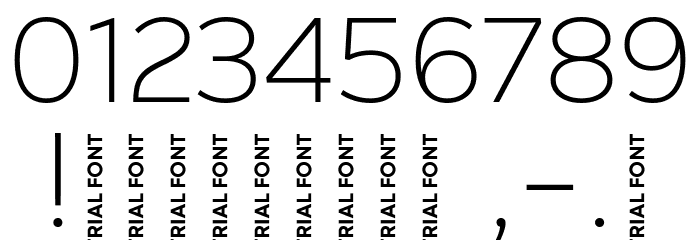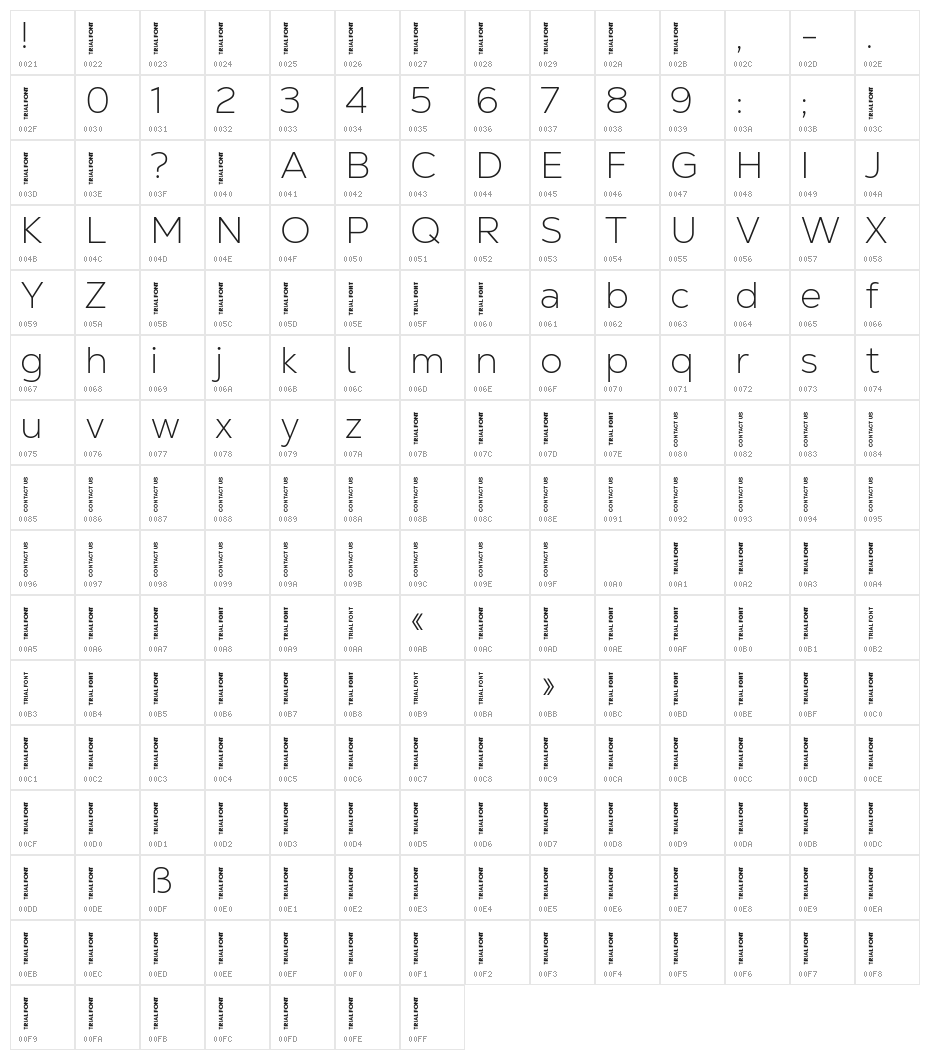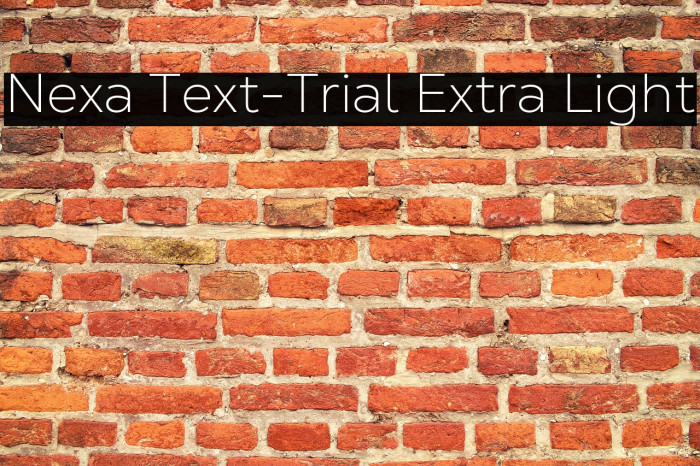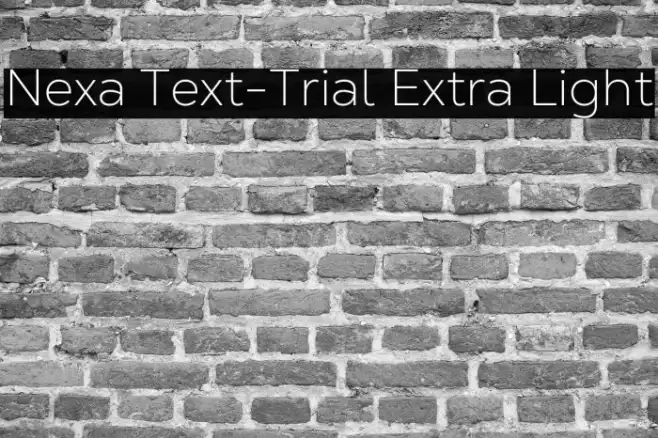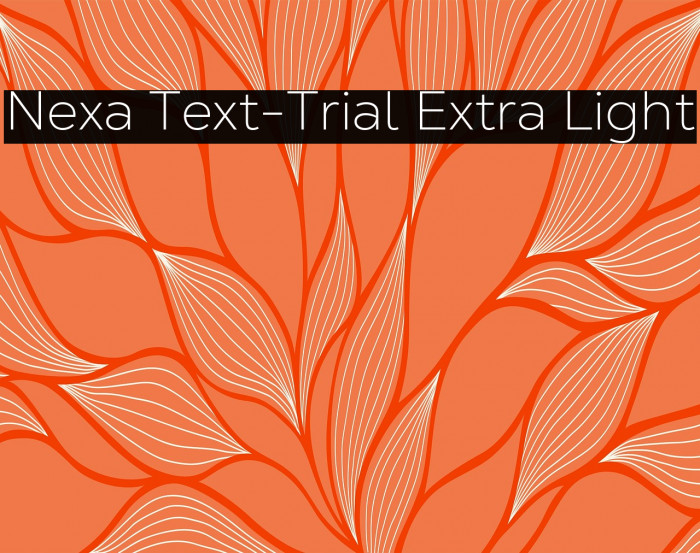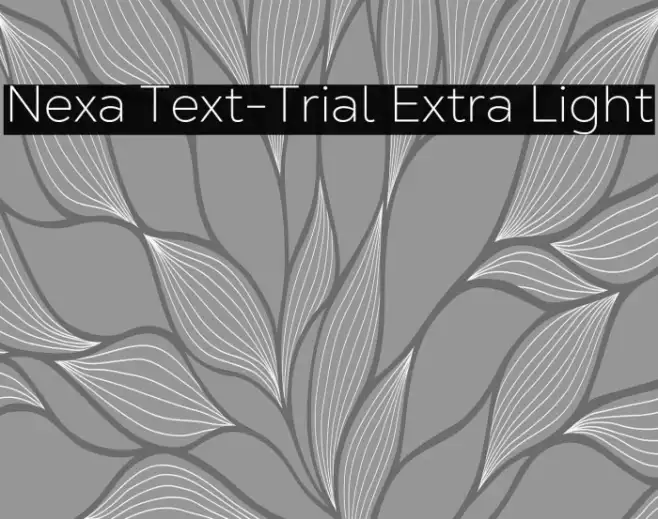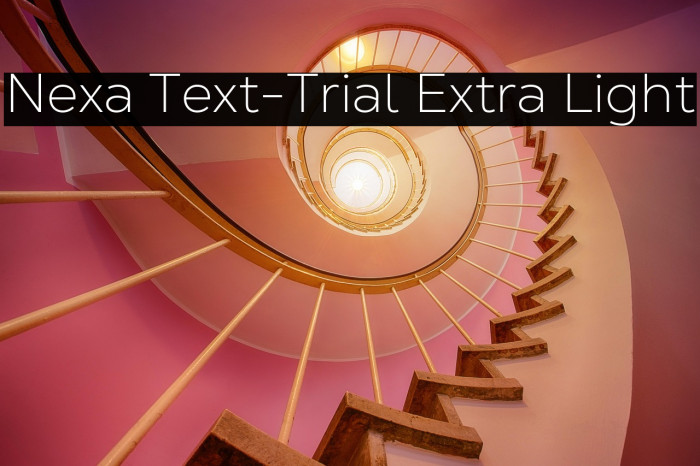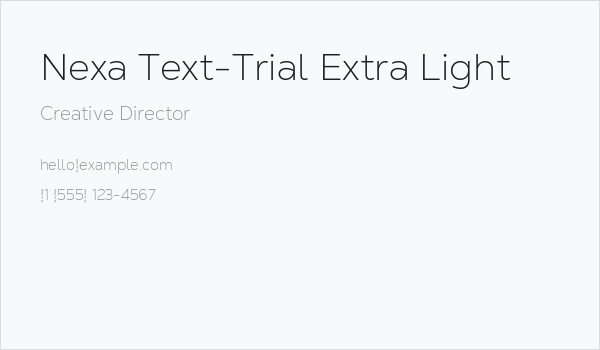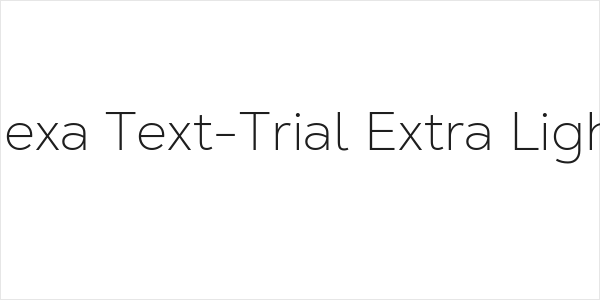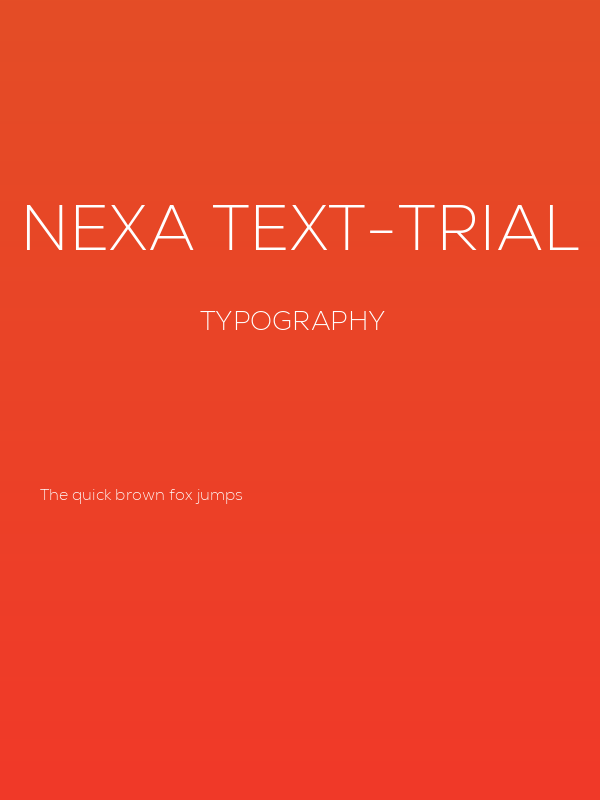
Nexa Text-Trial Extra Light Font
Nexa Text-Trial Extra Light Description
This font features a clean and modern sans-serif design with a focus on simplicity and readability. The characters are evenly spaced, providing a balanced and harmonious appearance. The strokes are consistent and thin, contributing to a light and airy feel. The font maintains a uniform width across all characters, enhancing its legibility. It is well-suited for both digital and print media, offering a versatile option for various design needs. The numerals and special characters are clearly defined, ensuring clarity in any context.
| Proposed Projects | Ideal for use in web design, corporate branding, editorial layouts, and minimalist graphic design projects. |